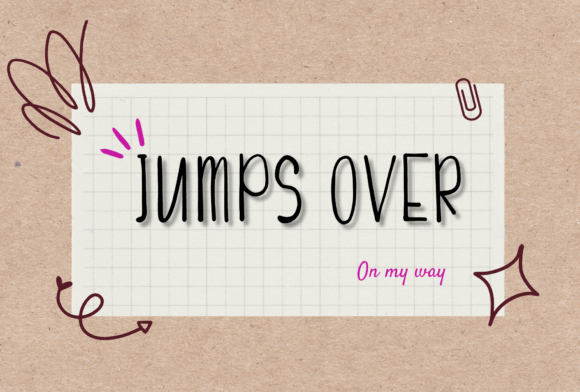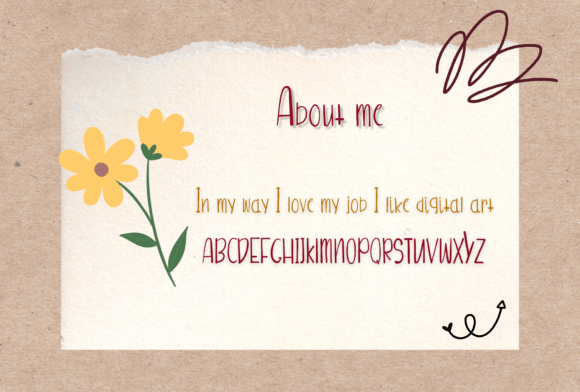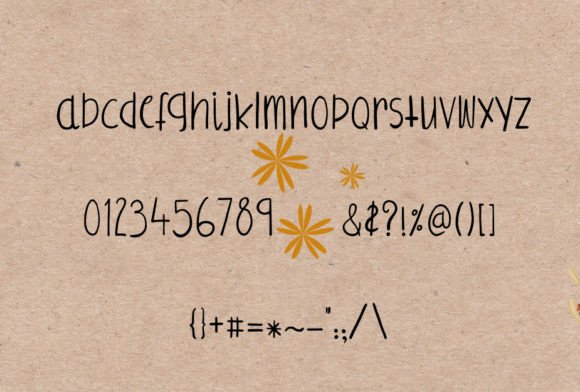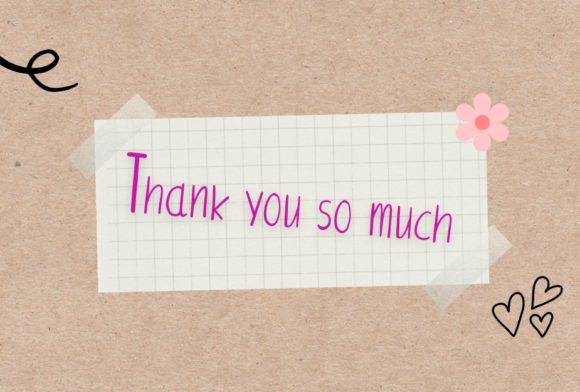
Jumps over Font
Jumps Over Font – Cute Handwritten Script Download
The Jumps Over Font download is a delightful handwritten typeface created to bring joy and friendliness to every design. With its playful curves and casual handwritten style, it captures the essence of creativity while staying elegant and versatile. Whether you are crafting a logo, designing invitations, or creating digital art, Jumps Over is the perfect choice for adding personality and warmth.
Cute and Friendly Design
The Jumps Over Font download is crafted to deliver a joyful aesthetic. Its soft curves and natural handwritten flow make it approachable, fun, and easy to read. This font is perfect for projects that require a personal and cheerful touch. From children’s designs to playful branding, it ensures your message is always presented in a charming way.
Perfect for Creative Projects
Whether you are working on greeting cards, posters, or social media graphics, the Jumps Over Font download fits seamlessly into your creative workflow. DIY enthusiasts will find it especially useful for crafting unique designs like personalized planners, digital stickers, and handmade invitations. Its versatility makes it a go-to choice for both professionals and hobbyists.
A Handwritten Style with Timeless Appeal
Handwritten fonts are beloved for their ability to connect emotionally with an audience. The Jumps Over Font download combines modern design with the authenticity of hand-drawn lettering. It works equally well for digital projects and print designs, ensuring your work always feels genuine and full of life.
Why Choose Jumps Over Font?
With countless handwritten fonts available, the Jumps Over Font download stands out thanks to its joyful style and excellent readability. It offers the perfect balance between fun and professionalism, making it suitable for everything from casual crafts to polished branding projects. Its unique personality ensures your designs will not go unnoticed.
Add Joy to Your Designs
Typography is more than just letters; it’s about creating emotions and connections. The Jumps Over Font download helps you do exactly that by infusing your designs with charm and happiness. Whether for logos, invitations, or digital posts, this font guarantees a playful yet refined result that will make your projects shine.